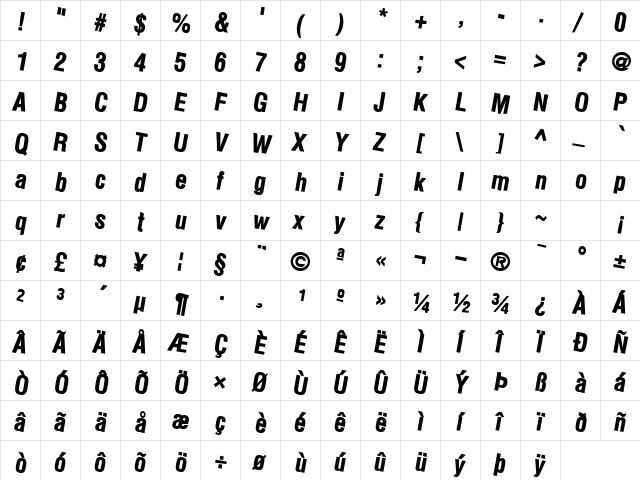
CarParkText33 Bold
Design Context for CarParkText33 Typeface
CarParkText33 takes a measured approach to typography — its balanced proportions and neutral character make it a reliable workhorse for both digital and print work. The heavy weight commands attention and anchors typographic hierarchies.